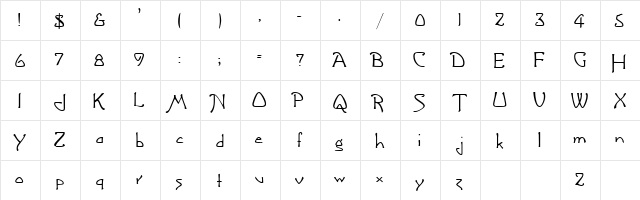
Greeting Regular
Design Context for Greeting Typeface
Greeting is a composed and adaptable typeface that performs quietly and consistently across a wide range of design contexts.